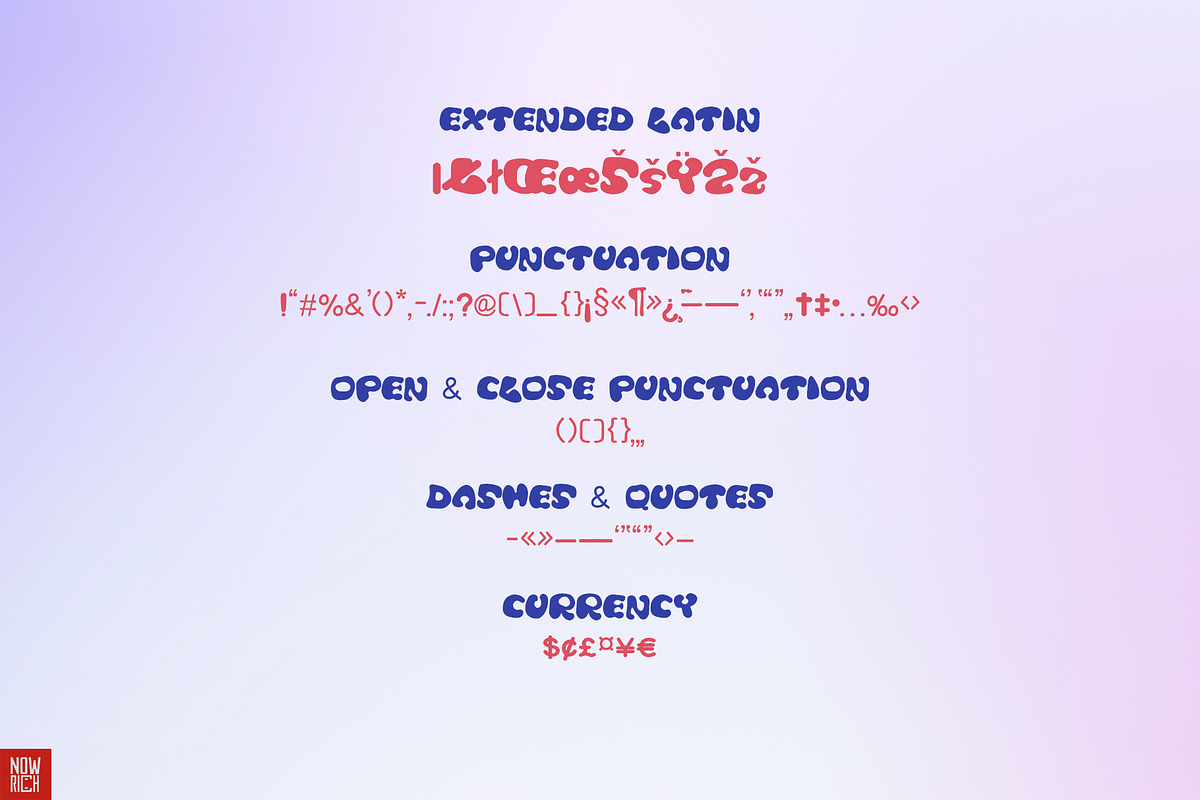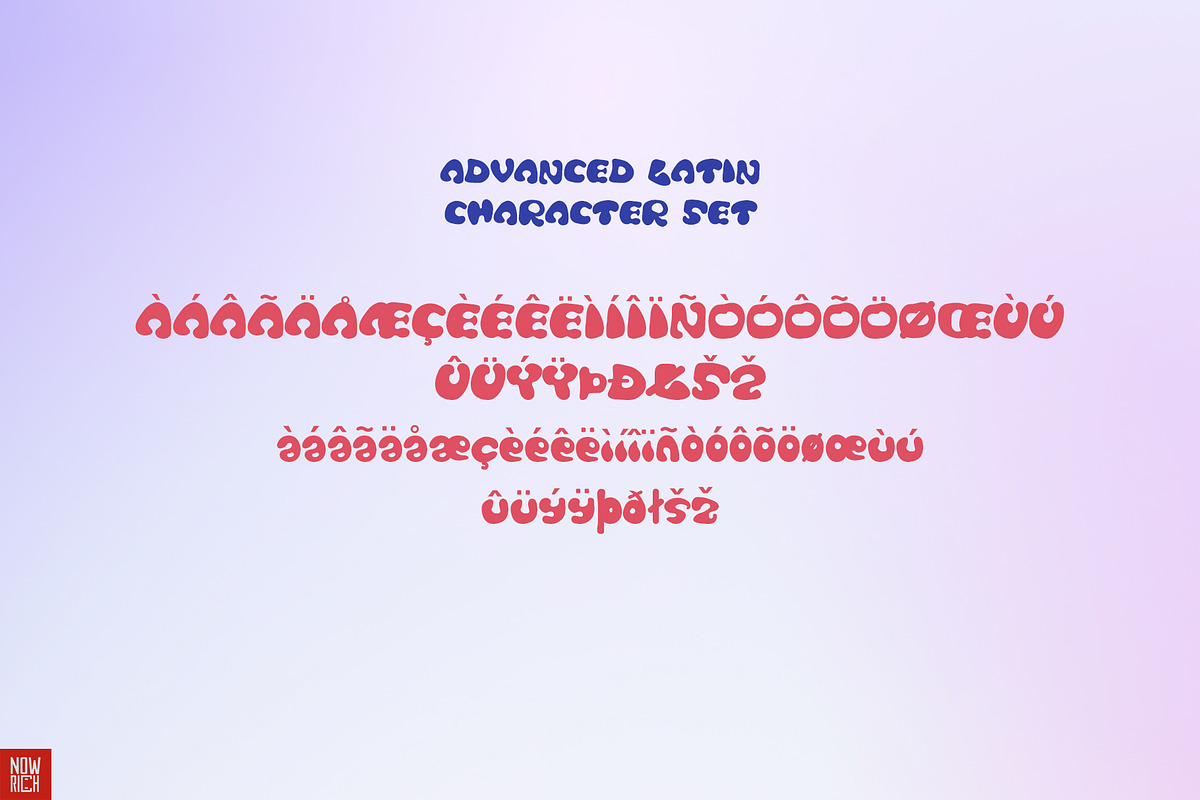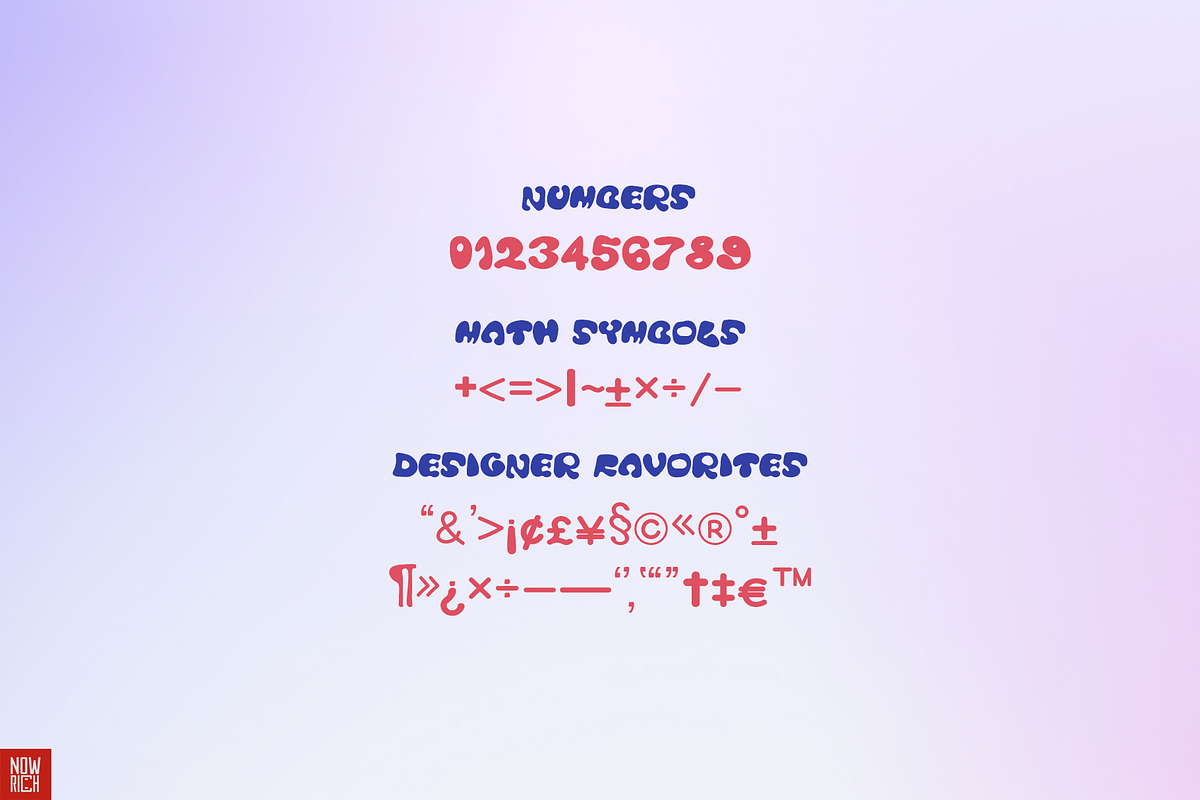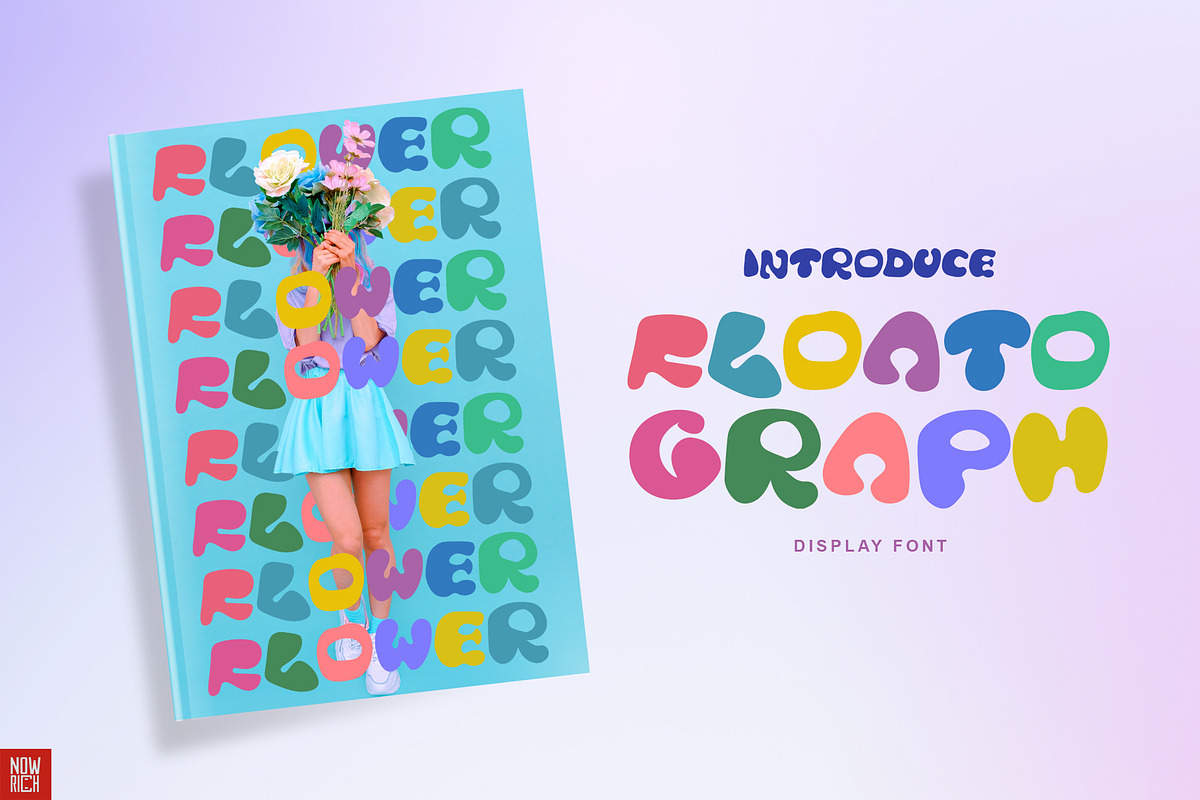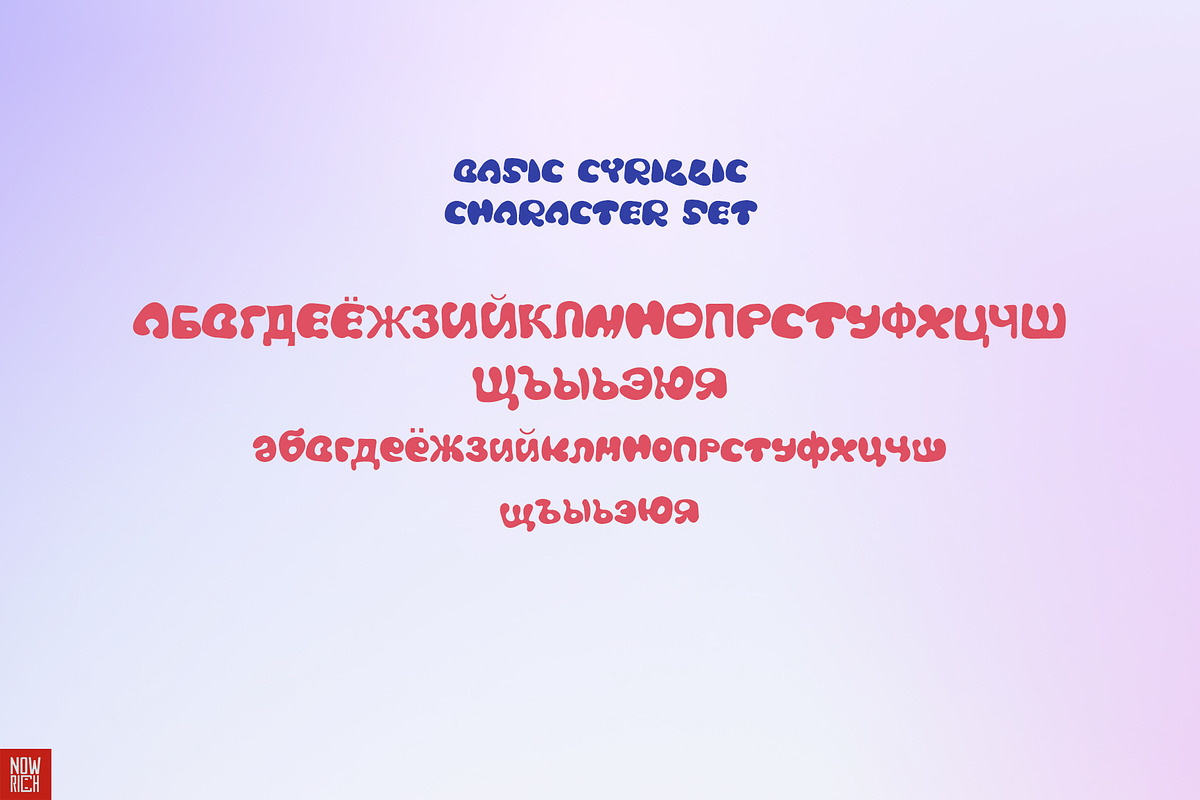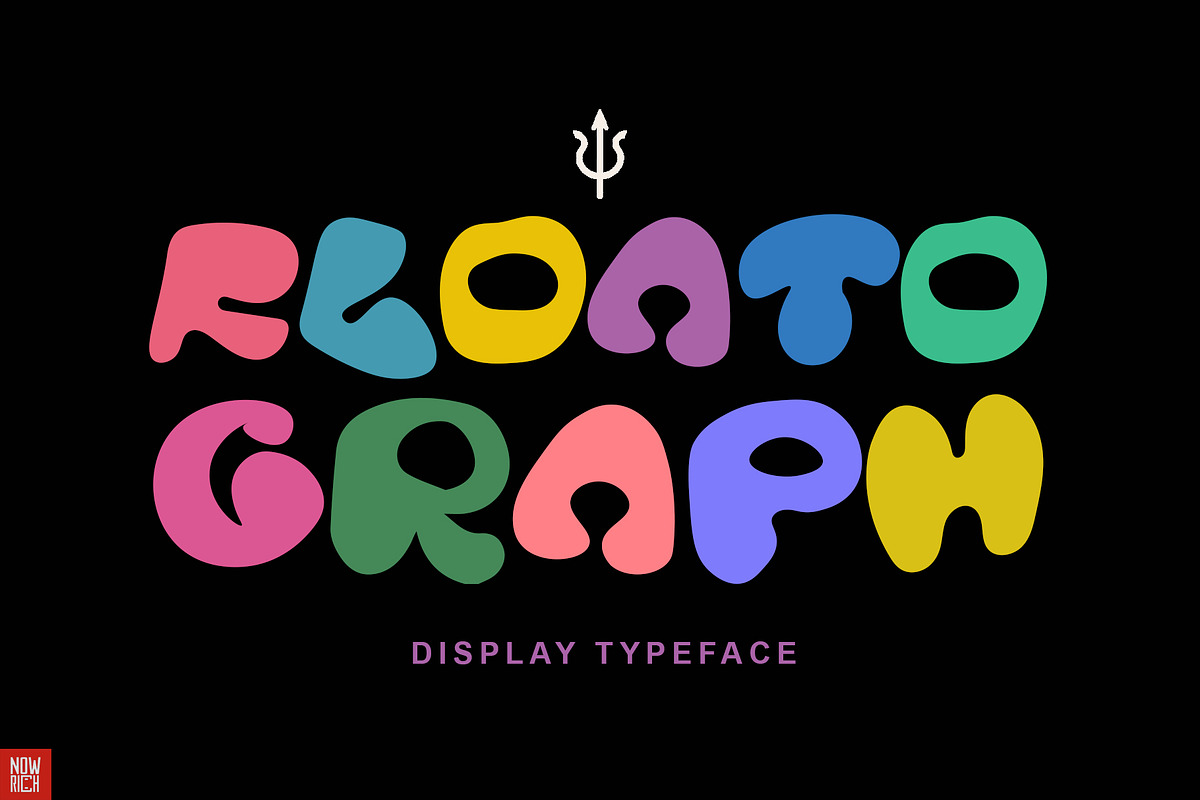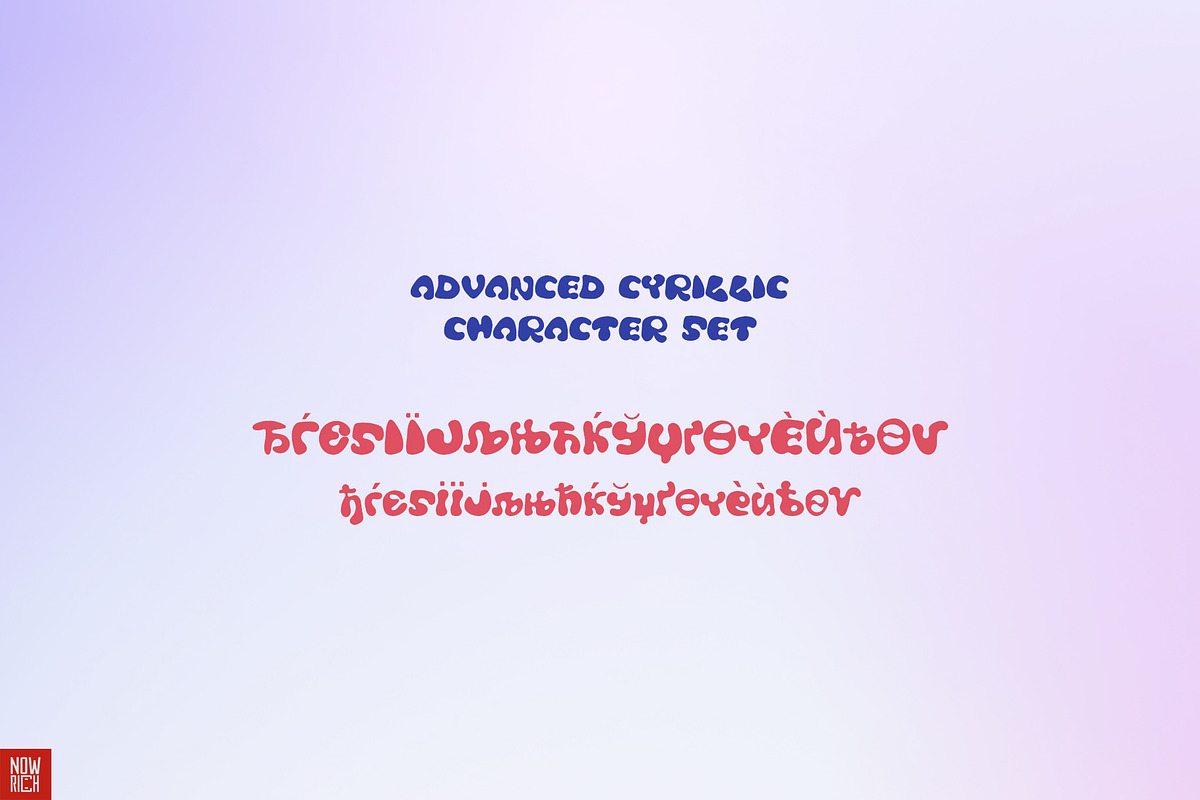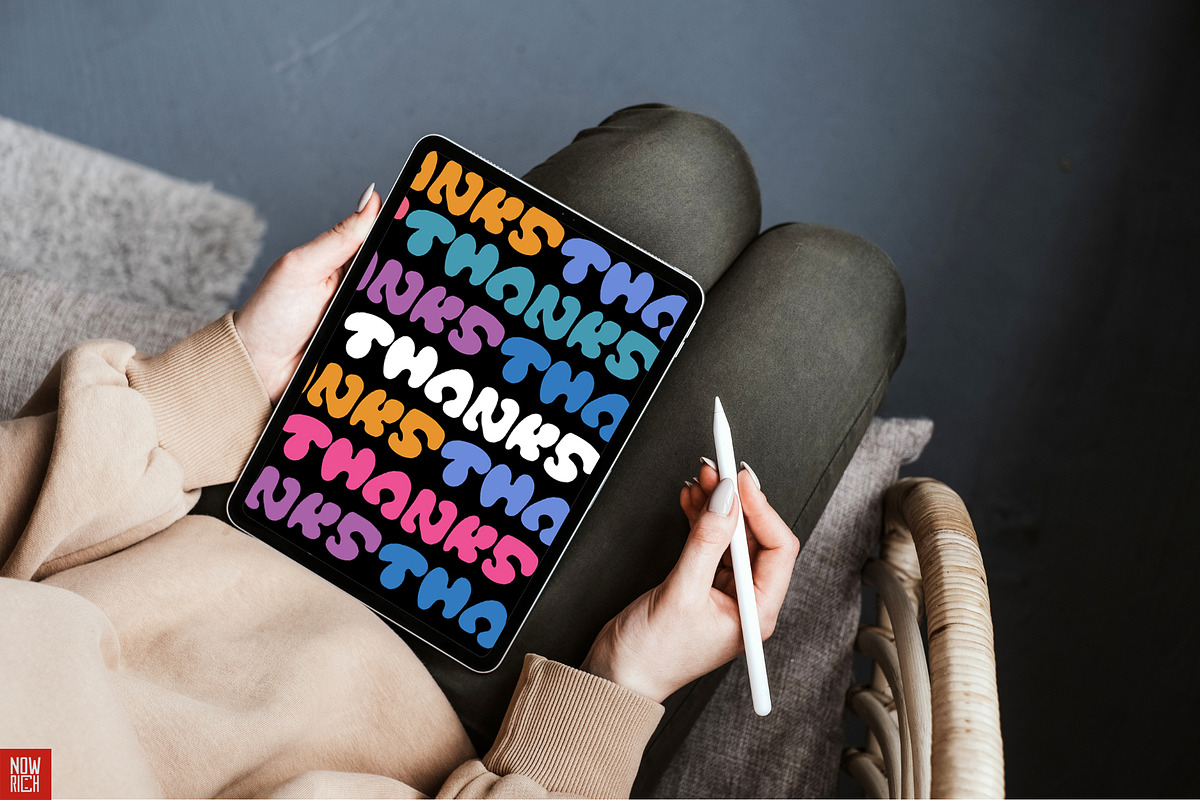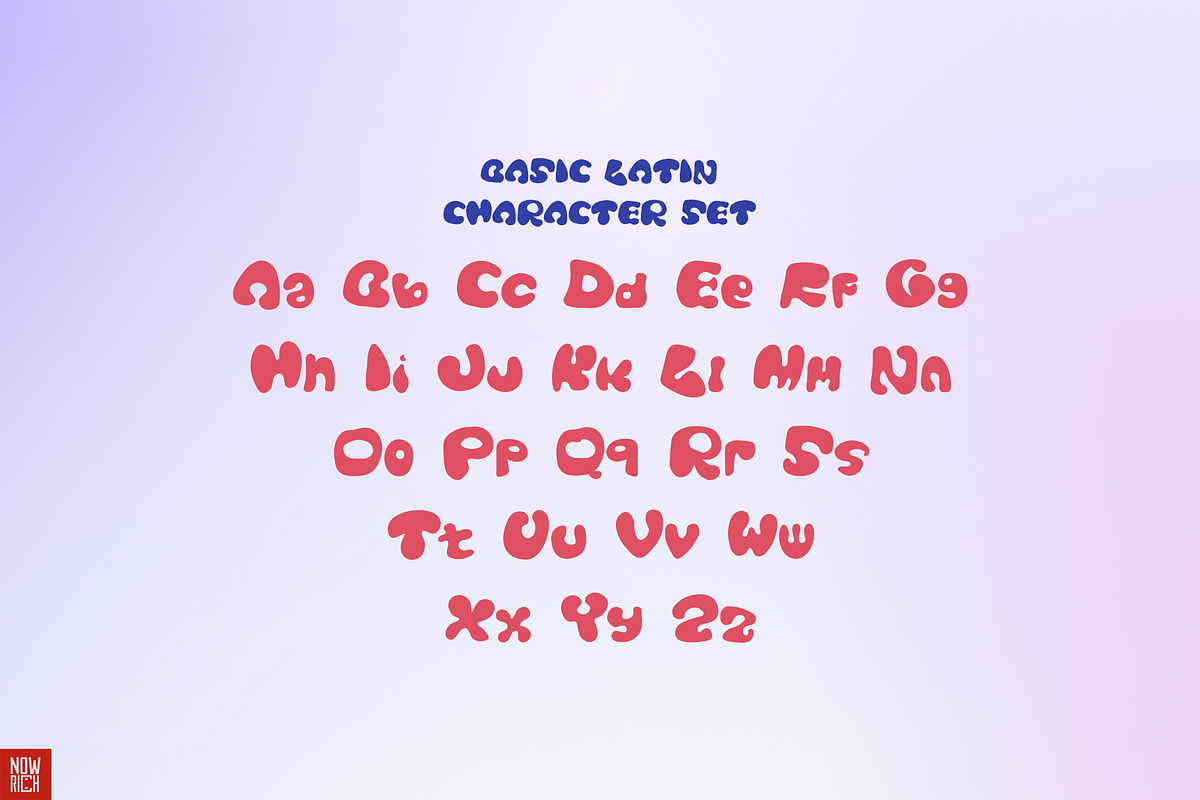
Floatograph Display Graffiti Bubble
Introducing Floatograph Typeface
The epitome of urban chic in graffiti-inspired typography. With its captivating blend of tradition and innovation, this unique bubble font is your ultimate tool for making a statement in invitation cards, poster walls, branding, logos, illustrations, and beyond. Stand out effortlessly with its captivating uppercase and lowercase characters, crafted to infuse your graphic projects with personality and flair. Unlock a world where tradition meets contemporary edge – elevate your designs with Floatograph today.
Featured :
- Open & Close Punctuation
- Dashes & Quotes
- Currency
- Math Symbols
- Designer Favorites
- Cyrillic
- Multi language support